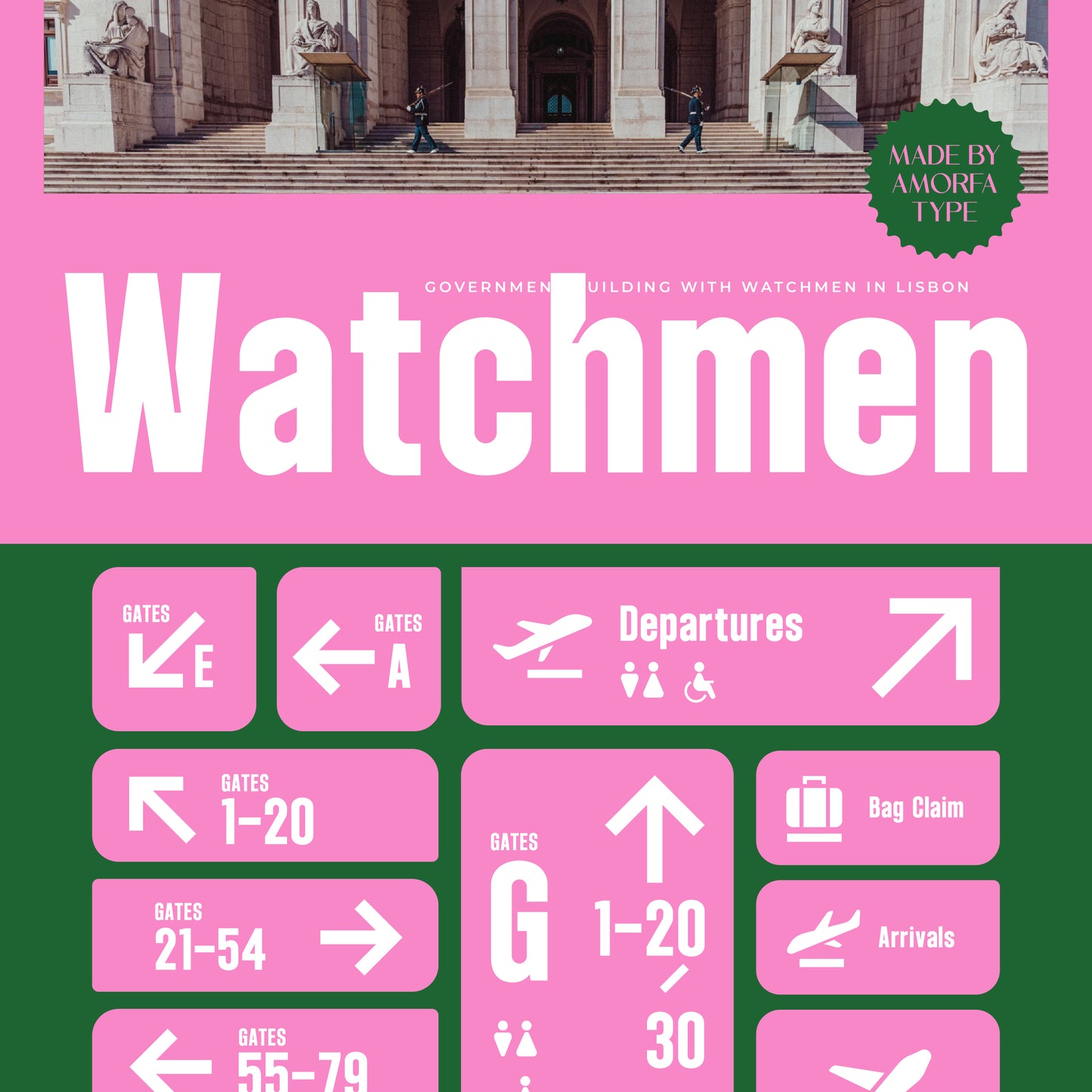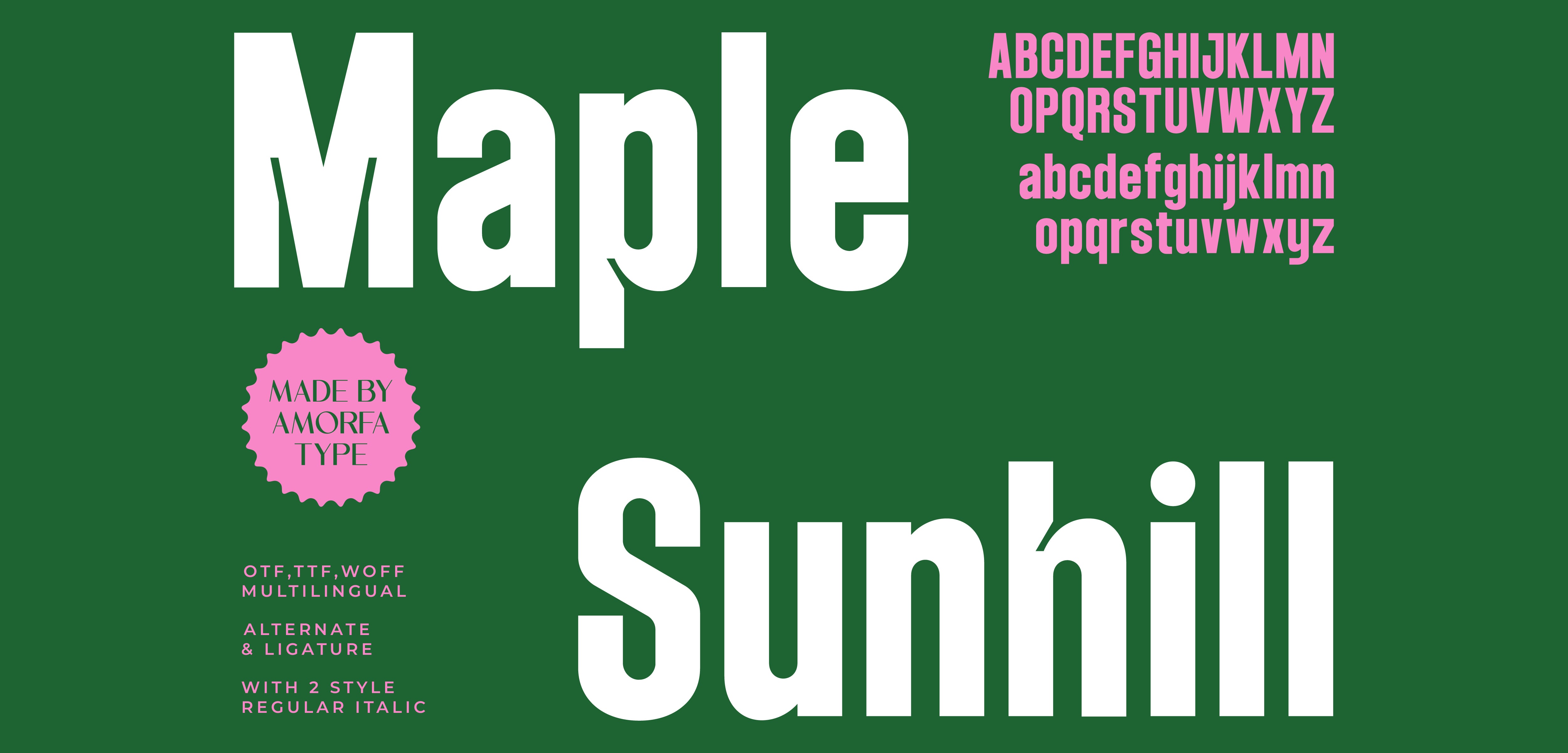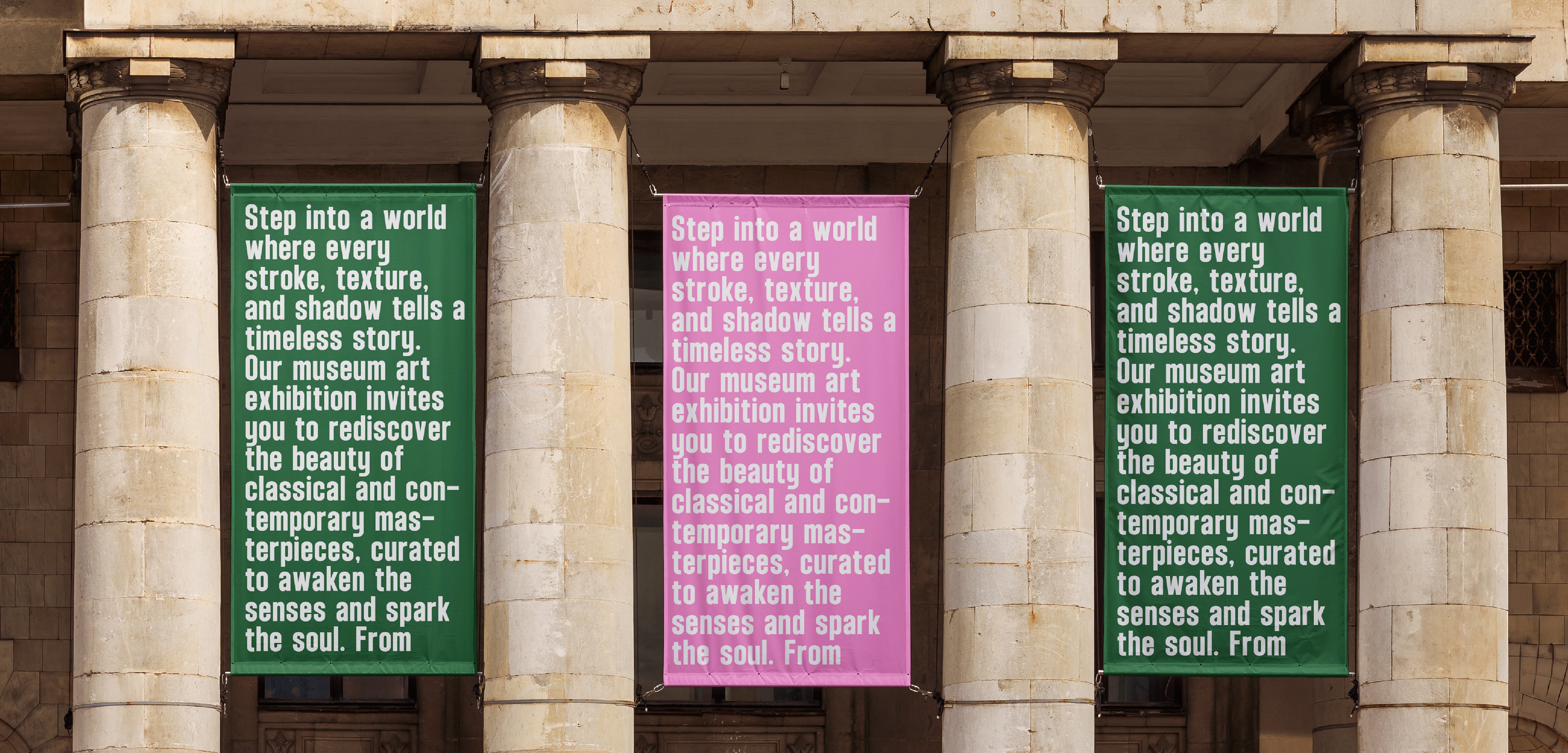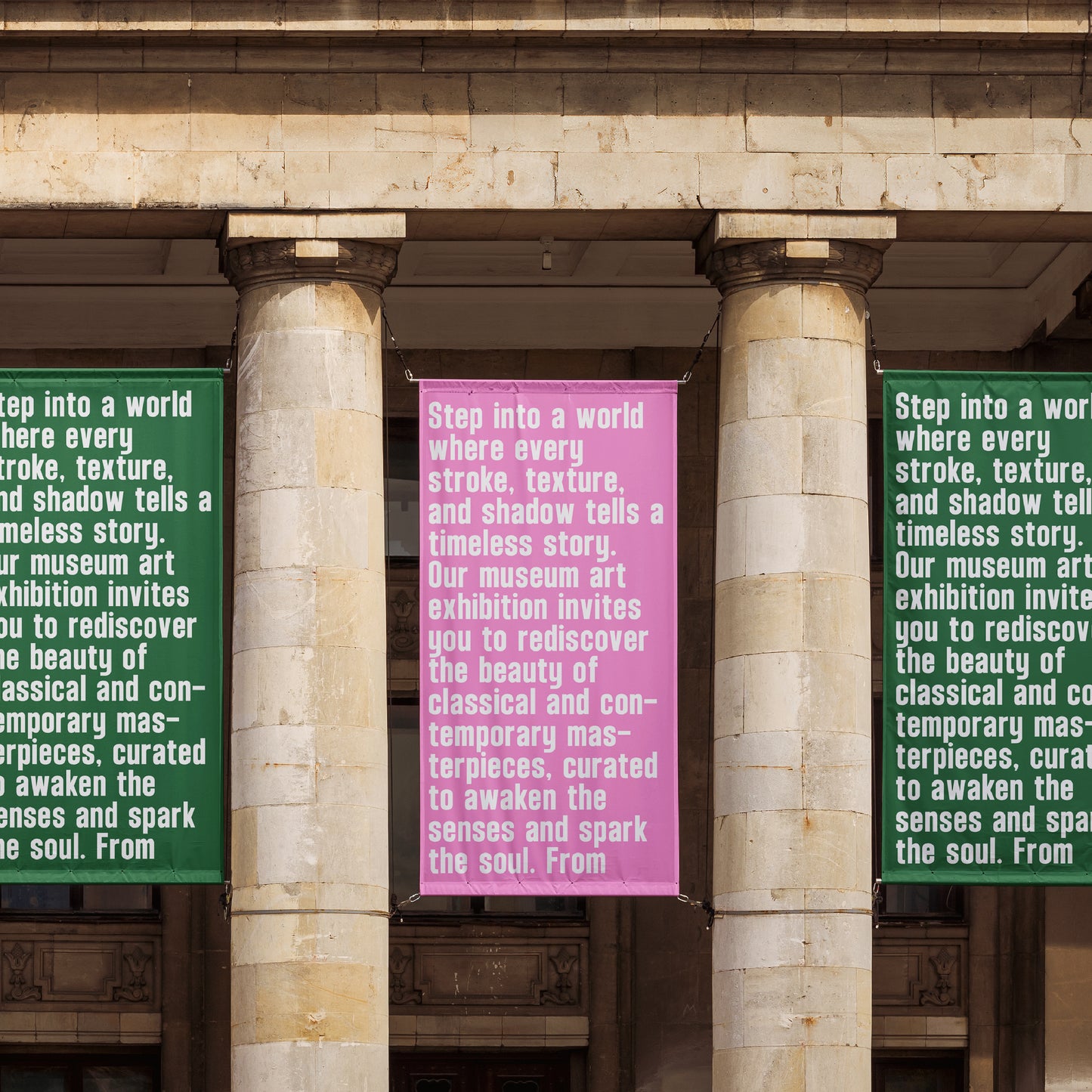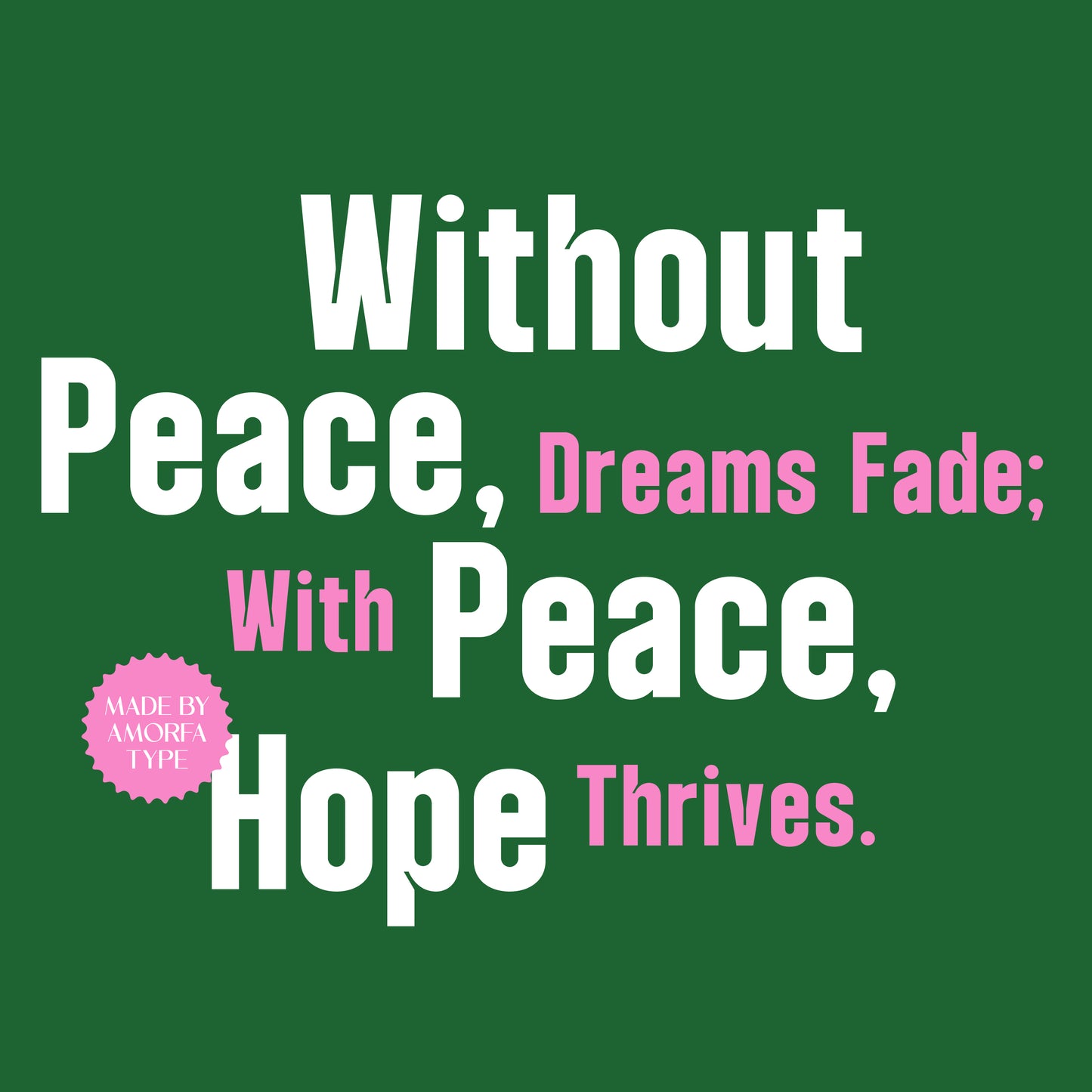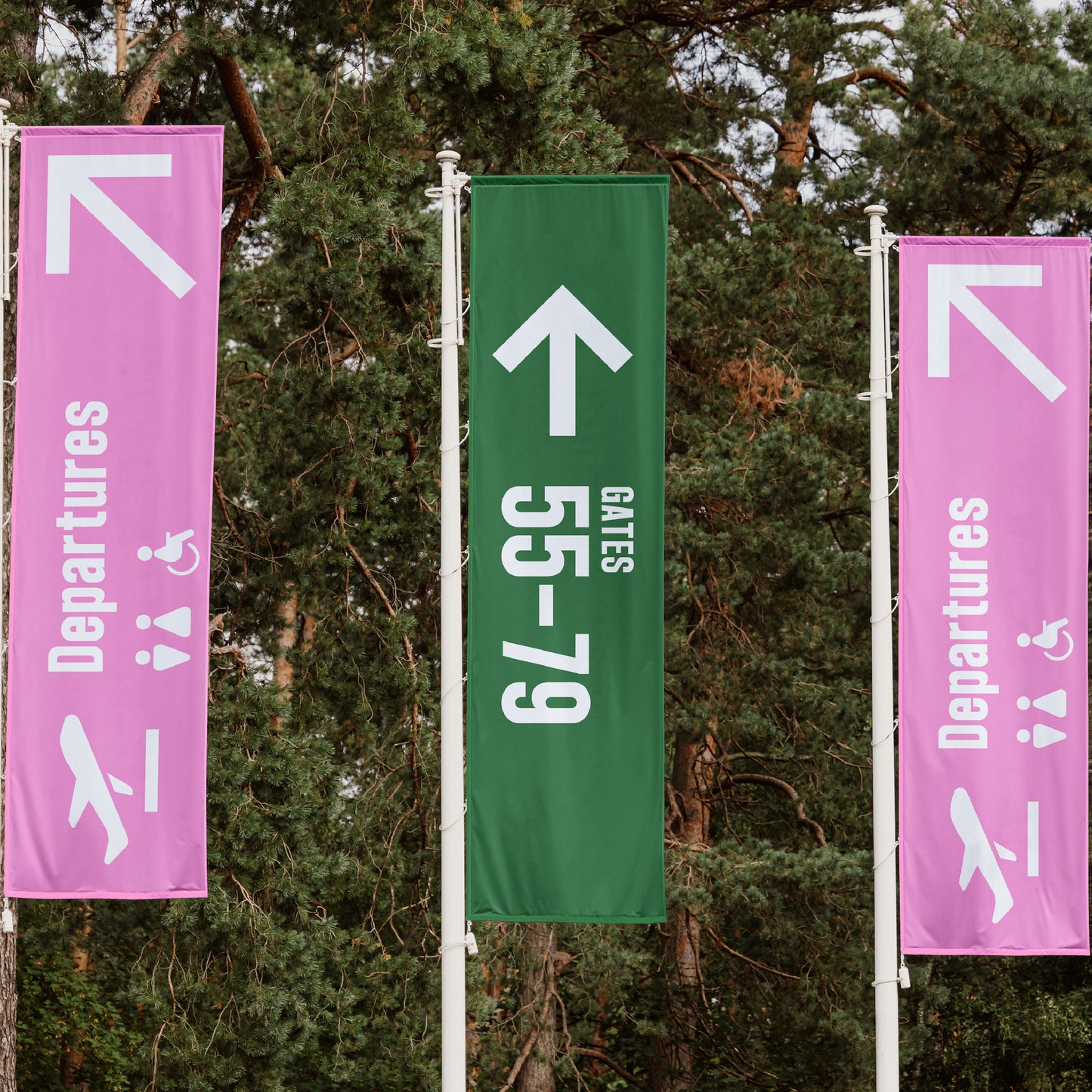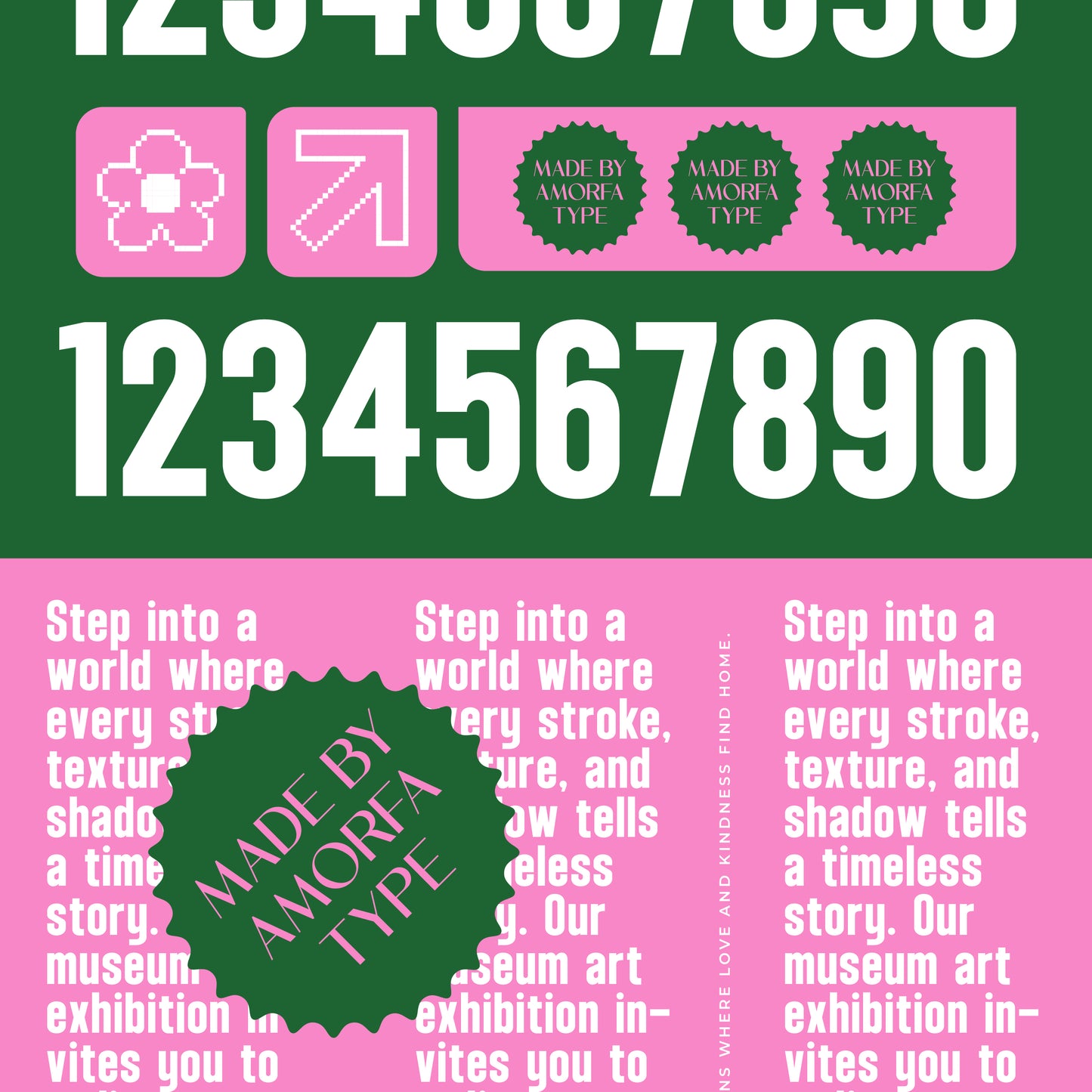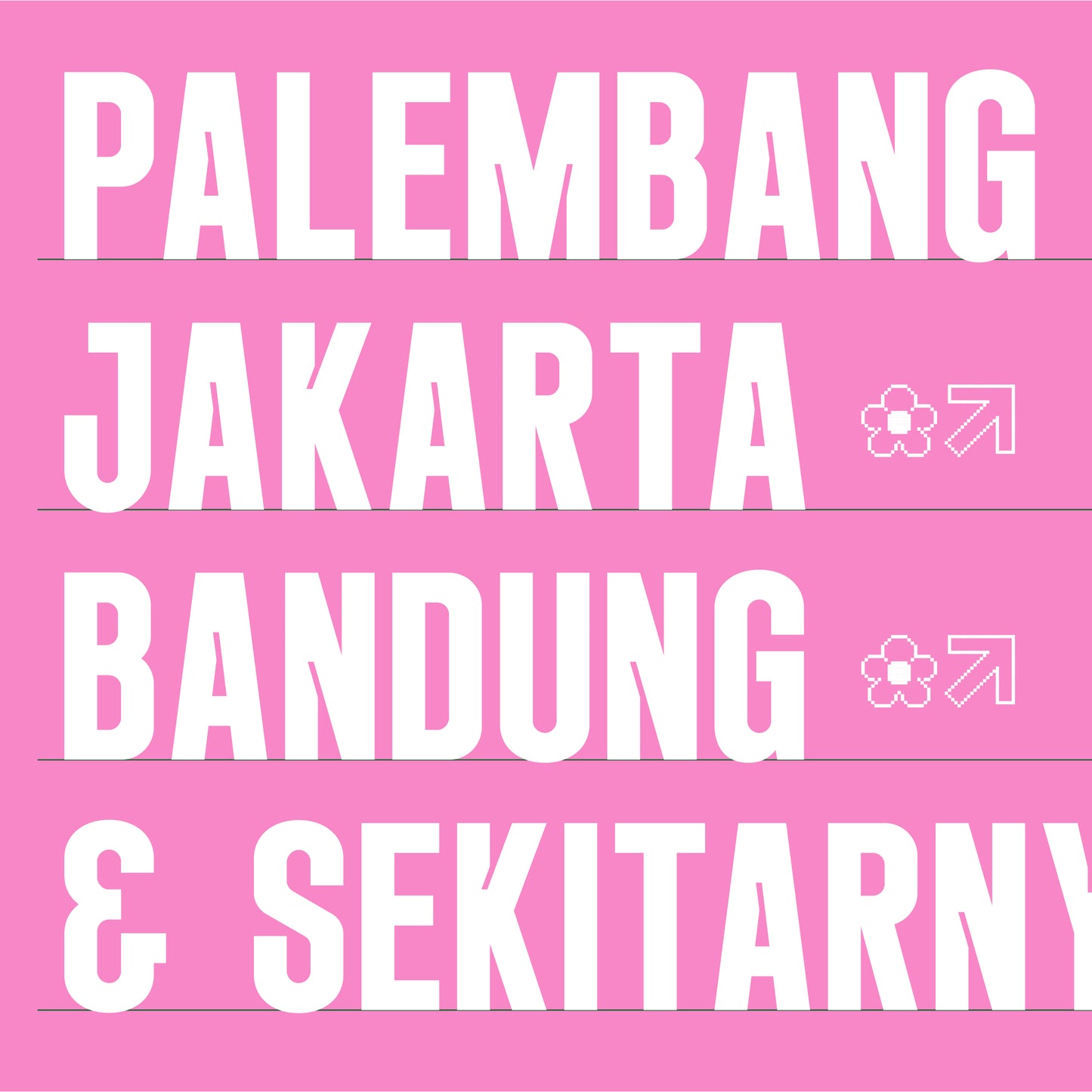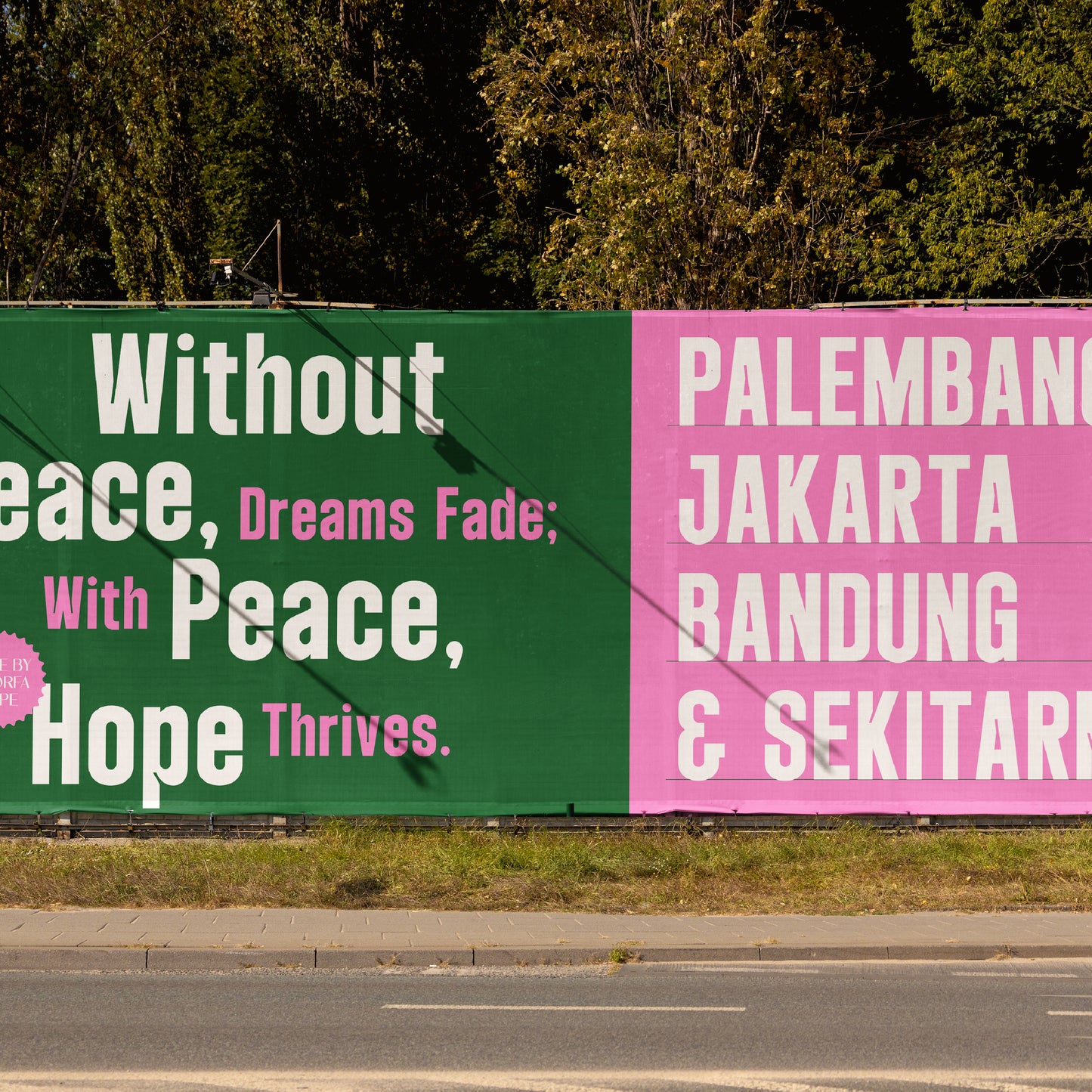
Maple Sunhill
Maple Sunhill is a modern sans display font crafted to bring a clean, confident, and contemporary personality to your designs. With its bold structure, balanced proportions, and distinctive letterforms, Maple Sunhill delivers strong visual impact while maintaining excellent readability.
— LIGATURES & STYLISTIC ALTERNATES